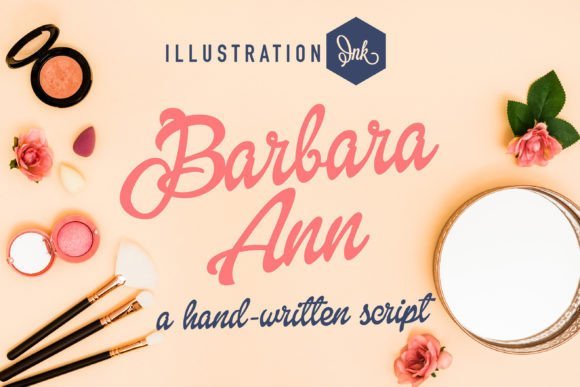
Introduction to Barbara Ann Font
This hand-written script is a pretty cursive with formal uppercase.
Bold version included A handwritten font is a font that is designed to look like it was written by hand.
Why Choose Barbara Ann Font?
Barbara Ann Font offers exceptional quality and versatility, making it a valuable addition to your design toolkit. Whether you’re creating for personal projects or commercial use, Barbara Ann Font delivers professional results.